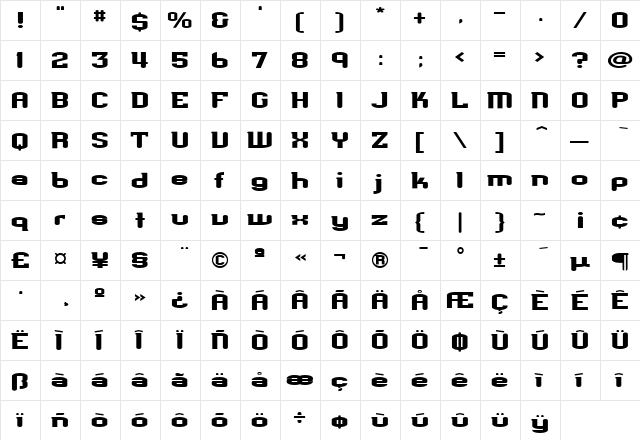
Werkman Regular
Design Context for Werkman Typeface
Werkman is a composed and adaptable typeface that performs quietly and consistently across a wide range of design contexts.